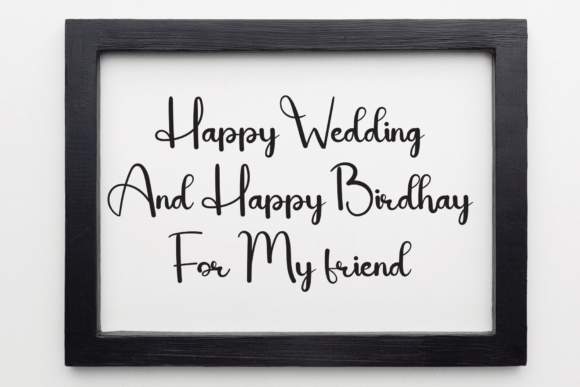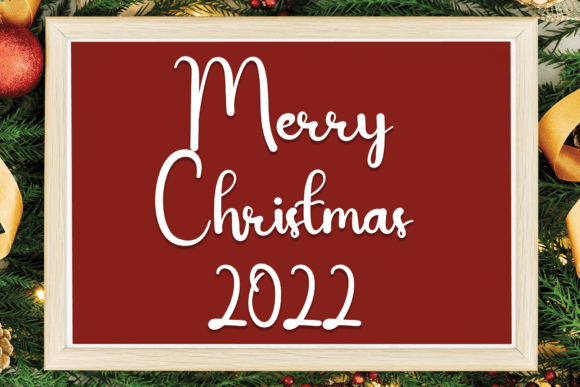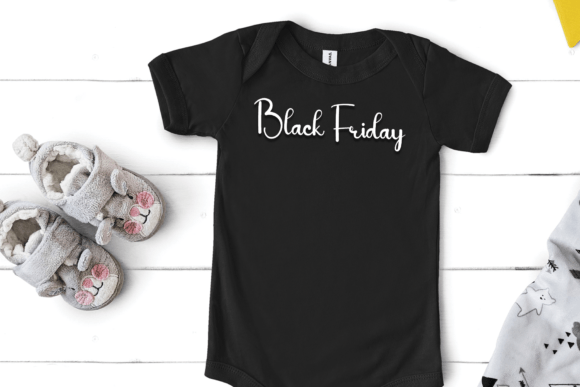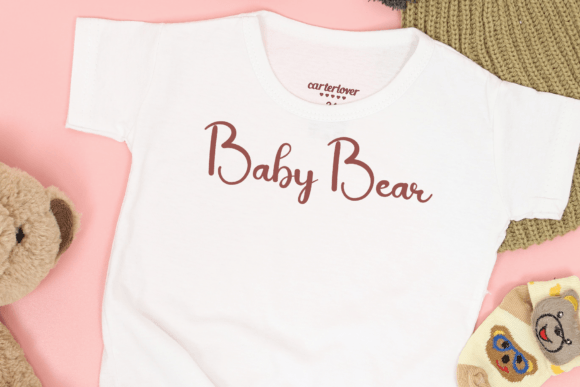
Hello Farmhouse Font: The Perfect Handwritten Font for Designers and Crafters
Hello Farmhouse is a simple and friendly handwritten font that has been gaining popularity among designers and crafters. Its unique charm and versatility make it an excellent choice for various projects, from crafts and digital design to presentations and greeting cards. In this article, we’ll dive deeper into the world of Hello Farmhouse Font and explore its features, benefits, and uses.
What is Hello Farmhouse Font?
Hello Farmhouse is a handwritten font designed to evoke a sense of warmth and friendliness. Its simple, yet elegant design makes it perfect for a wide range of applications. The font’s creator aimed to produce a typeface that would be easy to read and write, making it suitable for both digital and print projects.
Key Features of Hello Farmhouse Font
- Simple and Friendly Design: Hello Farmhouse boasts a clean and approachable design that makes it perfect for various projects.
- Handwritten Style: The font’s handwritten style adds a personal touch to any project, making it ideal for crafts, greeting cards, and other creative endeavors.
- Versatile: Hello Farmhouse can be used for a wide range of applications, including digital design, presentations, and print projects.
- Easy to Read and Write: The font’s clear and legible design ensures that your text is easy to read and understand.
Benefits of Using Hello Farmhouse Font
So, why should designers and crafters choose Hello Farmhouse Font for their projects? Here are some benefits of using this amazing font:
- Unique and Personalized: Hello Farmhouse adds a personal touch to your projects, making them stand out from the crowd.
- Time-Saving: The font’s clear and legible design saves you time and effort, as you don’t need to worry about your text being difficult to read.
- Consistency: Hello Farmhouse ensures consistency in your design, making your projects look professional and cohesive.
- Emotional Connection: The font’s friendly and approachable design helps create an emotional connection with your audience, making your projects more engaging and effective.
Uses of Hello Farmhouse Font
Hello Farmhouse Font is an incredibly versatile typeface that can be used for a wide range of projects, including:
- Crafts: Use Hello Farmhouse to add a personal touch to your craft projects, such as scrapbooking, card making, and DIY decorations.
- Digital Design: The font is perfect for digital design projects, such as social media graphics, blog posts, and website headers.
- Presentations: Add a touch of personality to your presentations with Hello Farmhouse, making them more engaging and memorable.
- Greeting Cards: Use the font to create beautiful and personalized greeting cards for special occasions.
Tips for Using Hello Farmhouse Font
To get the most out of Hello Farmhouse Font, here are some tips to keep in mind:
- Experiment with Font Sizes: Try different font sizes to create visual interest and hierarchy in your design.
- Pair with Other Fonts: Combine Hello Farmhouse with other fonts to create a unique and interesting contrast.
- Use for Headings and Body Text: Use the font for both headings and body text to create a cohesive and professional design.
Hello Farmhouse Font is a simple and friendly handwritten font that has the potential to become your go-to font for various projects. Its unique charm, versatility, and ease of use make it an excellent choice for designers and crafters. Whether you’re creating crafts, digital design projects, presentations, or greeting cards, Hello Farmhouse is sure to add a personal touch and make your projects stand out.